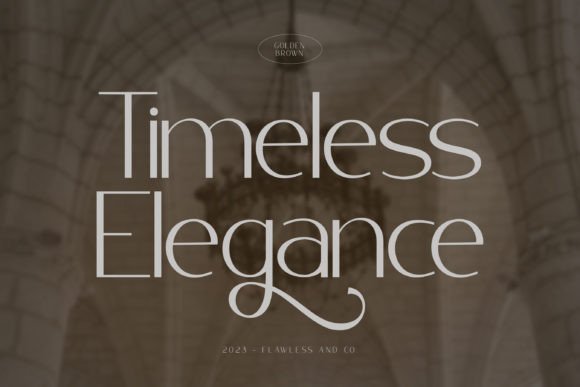
Golden Brown Font
Introducing “Golden Brown” – An Elegant Sans Serif Font. Step into a world of refined beauty with “Golden Brown,” an elegant sans serif font that not only exudes sophistication but also offers a range of alternate characters and ligatures to elevate your design possibilities. With its clean lines and versatile styling, “Golden Brown” is designed to convey timeless grace and style with a touch of individuality.